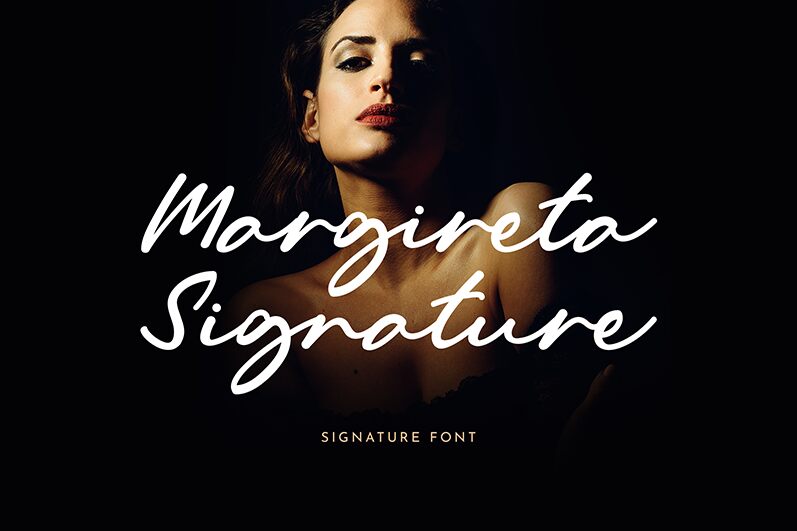
Margireta Signature Script
Margireta Signature Script font is an elegant handwritten font designed by UI Creative. Its smooth flow and casual elegance produce a modern signature style with expressive flair. The exquisite pen strokes and natural curves provide a remarkable subtlety for a spectacular presentation.